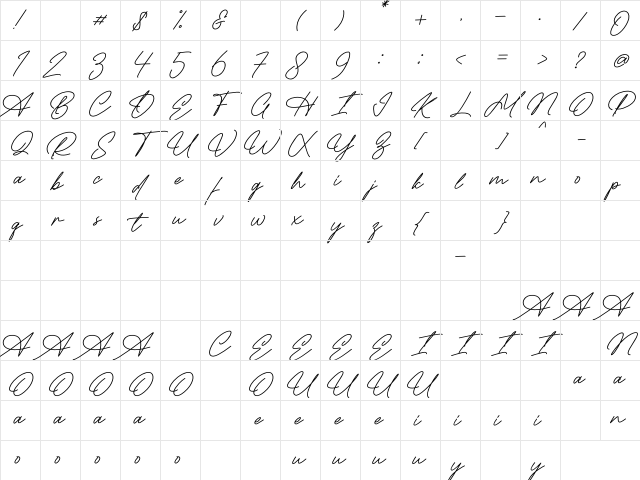
Complete Radhion Signature Regular glyph index. Displaying only characters natively supported by Radhion Signature Regular font.
Radhion Signature is a composed and adaptable typeface that performs quietly and consistently across a wide range of design contexts.